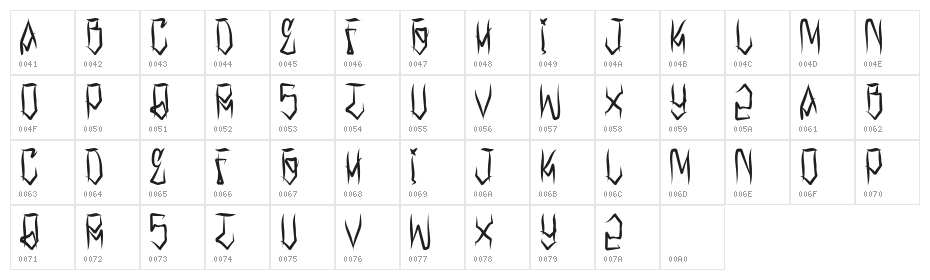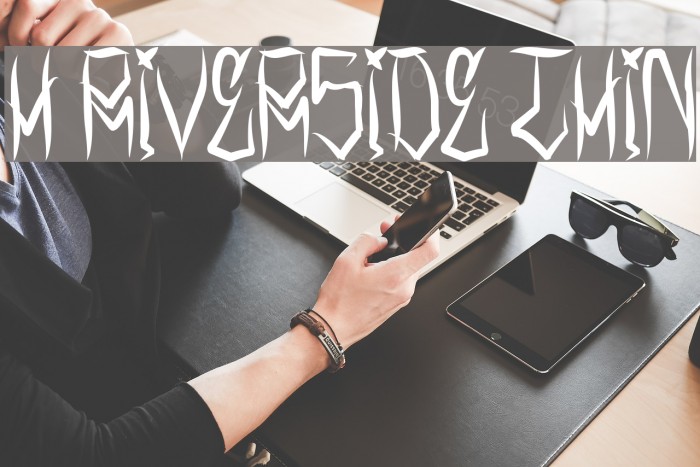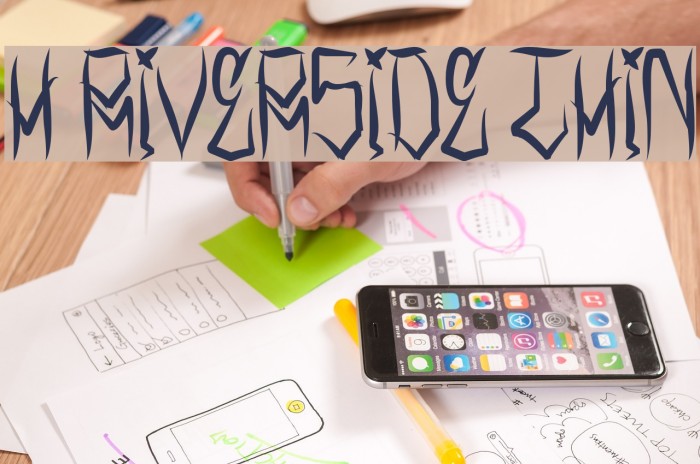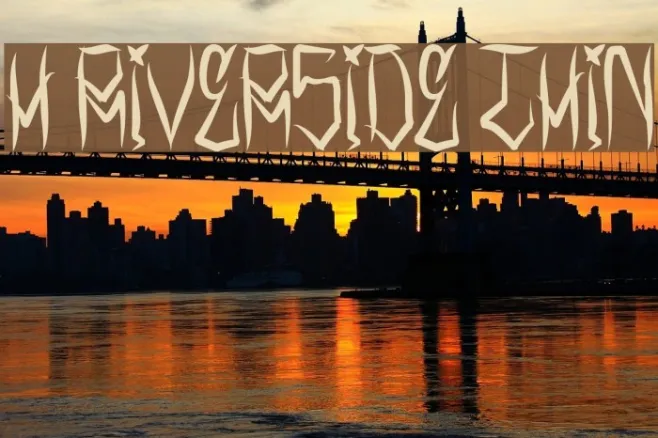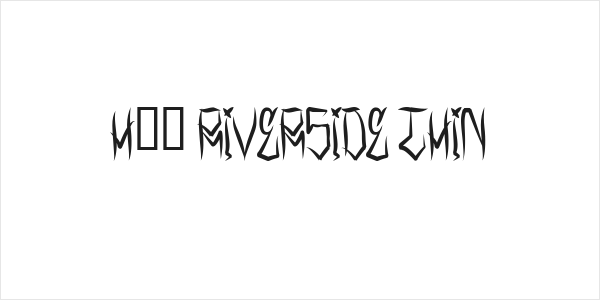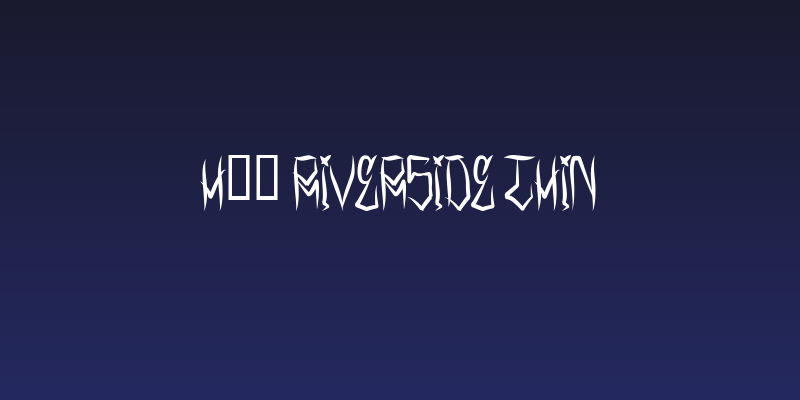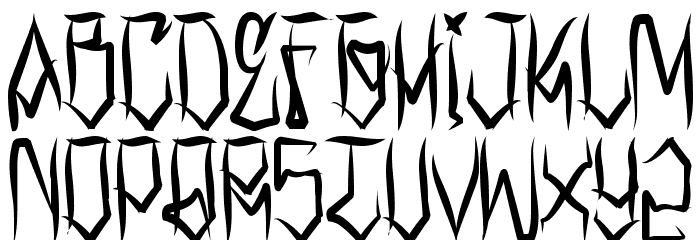
H74 Riverside Thin Font
H74 Riverside Thin Description
This font features a unique and edgy design with sharp, angular lines and a distinct gothic influence. The characters are elongated and pointed, giving them a dramatic and intense appearance. The uppercase and lowercase letters maintain a consistent style, with a strong emphasis on vertical strokes and minimal curves. The numerals and special characters follow the same aesthetic, ensuring a cohesive look across all text. This font's bold and striking design makes it ideal for projects that require a strong visual impact.
| Overall Style | Gothic, Dramatic |
| Proposed Projects | Ideal for tattoo designs, album covers, posters, and branding that requires a bold, gothic aesthetic. |